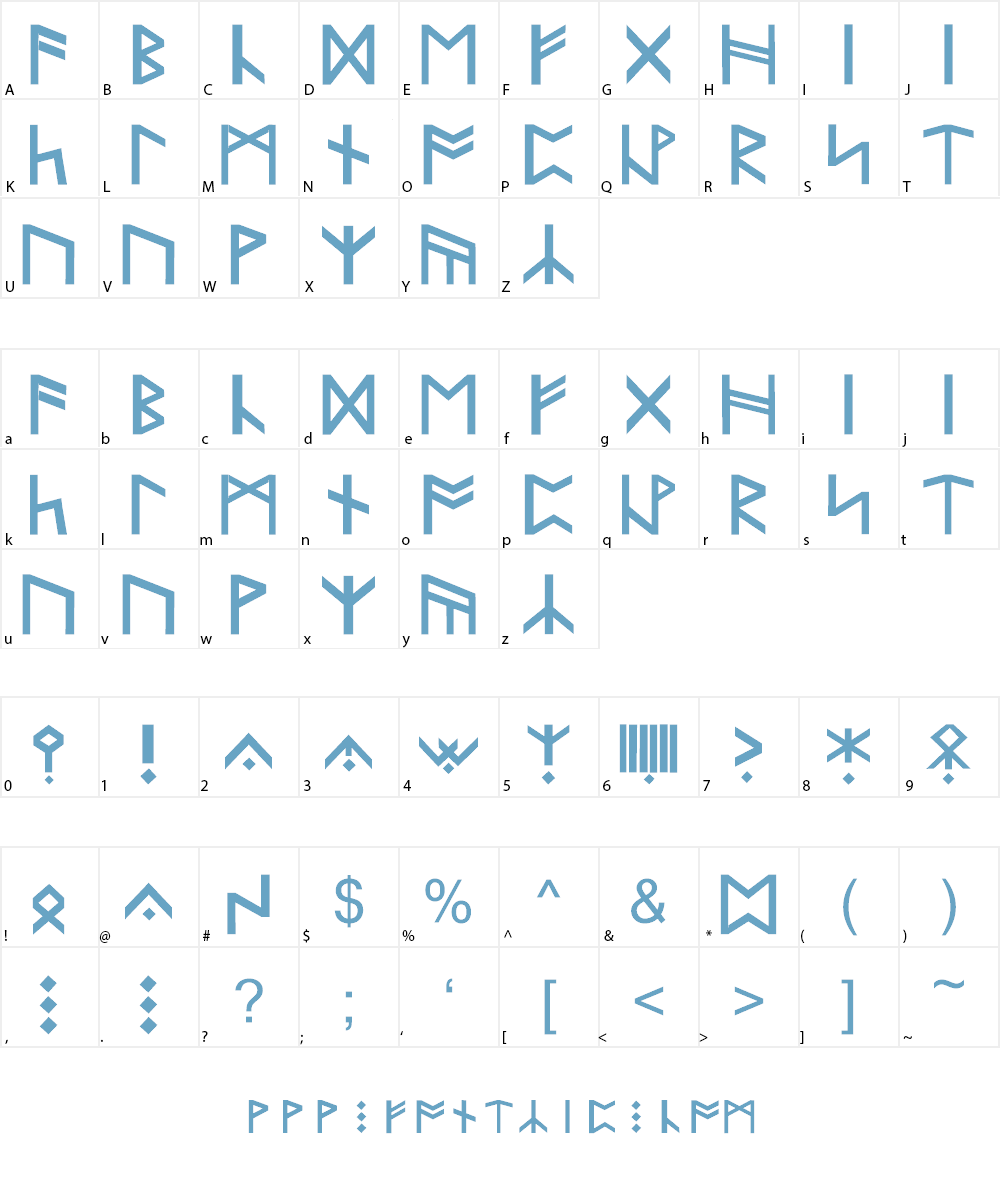
I had to make some special signs for those khuzdul letters which are for two letters in latin (etc. th, ea, ng...). Here is how to use them:
Press / key for TH sign,
Press ' key for EA sign,
Press ! key for EE sign,
Press @ key for EO sign,
Press key for NG sign,
Press - key for OO sign,
Press * key for ST sign,
Press # key for SH sign.
This font includes correct khuzdul spacing and punctuation.